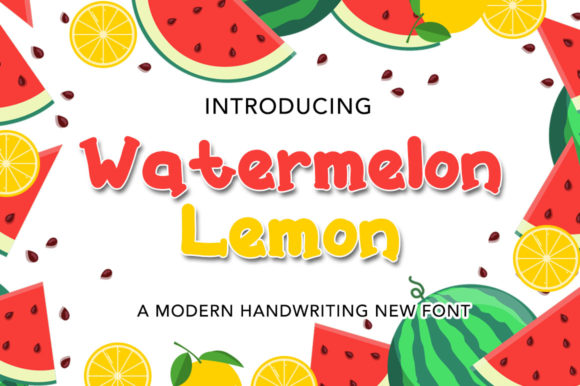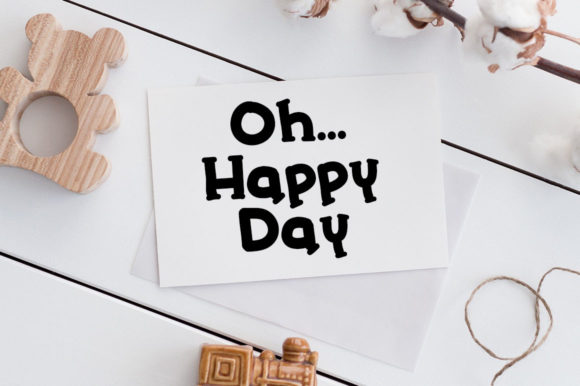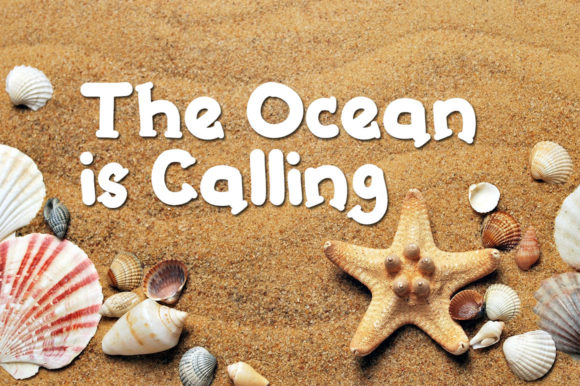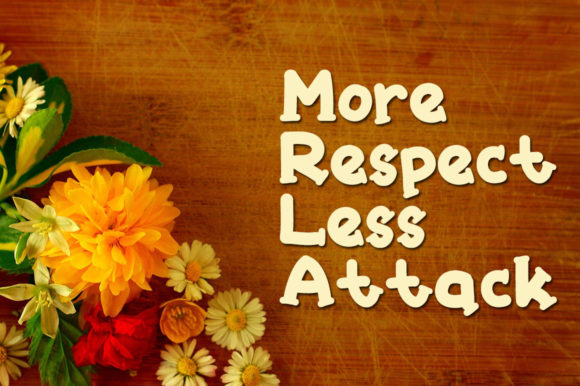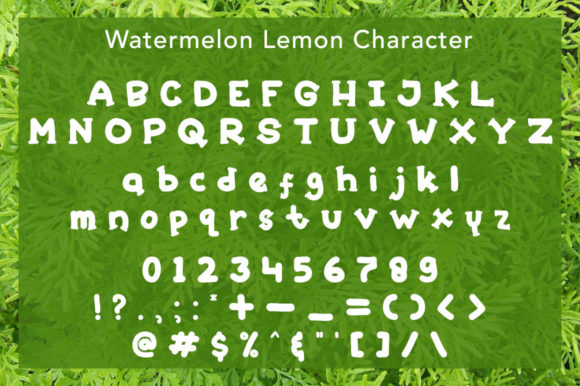
Watermelon Lemon Font
About Watermelon Lemon Font
Watermelon Lemon is a cute and casual handwritten font. It will look outstanding in any context, whether you’re looking for fonts for Instagram or calligraphy scripts for DIY projects. This friendly and quirky font will elevate all your projects to the highest levels!